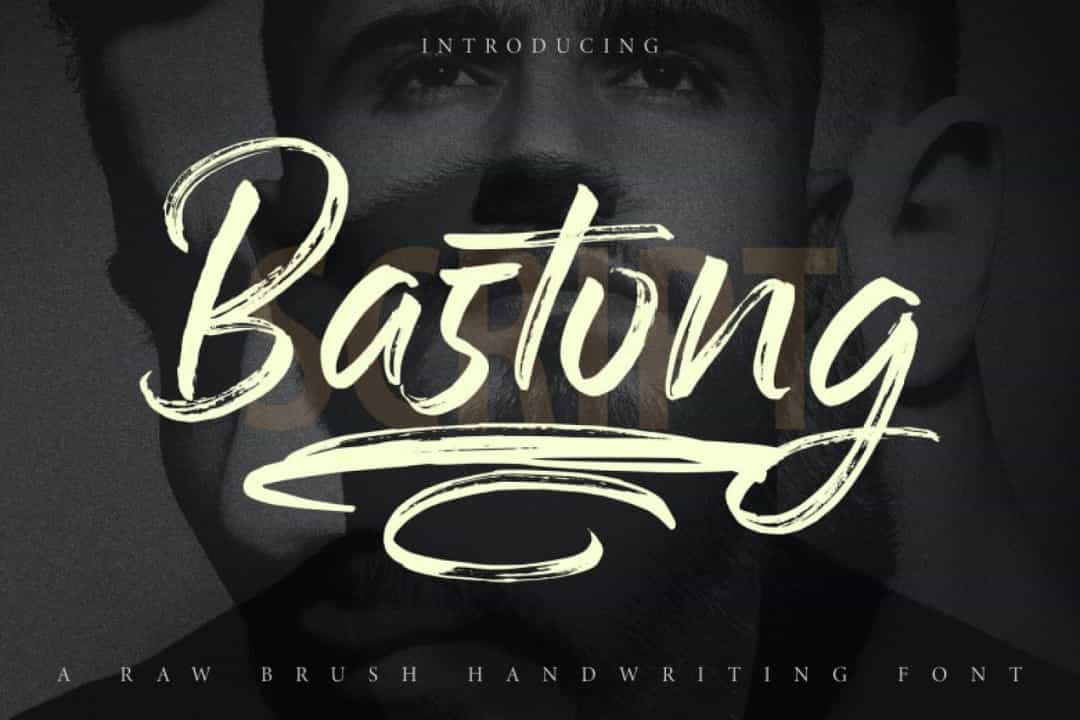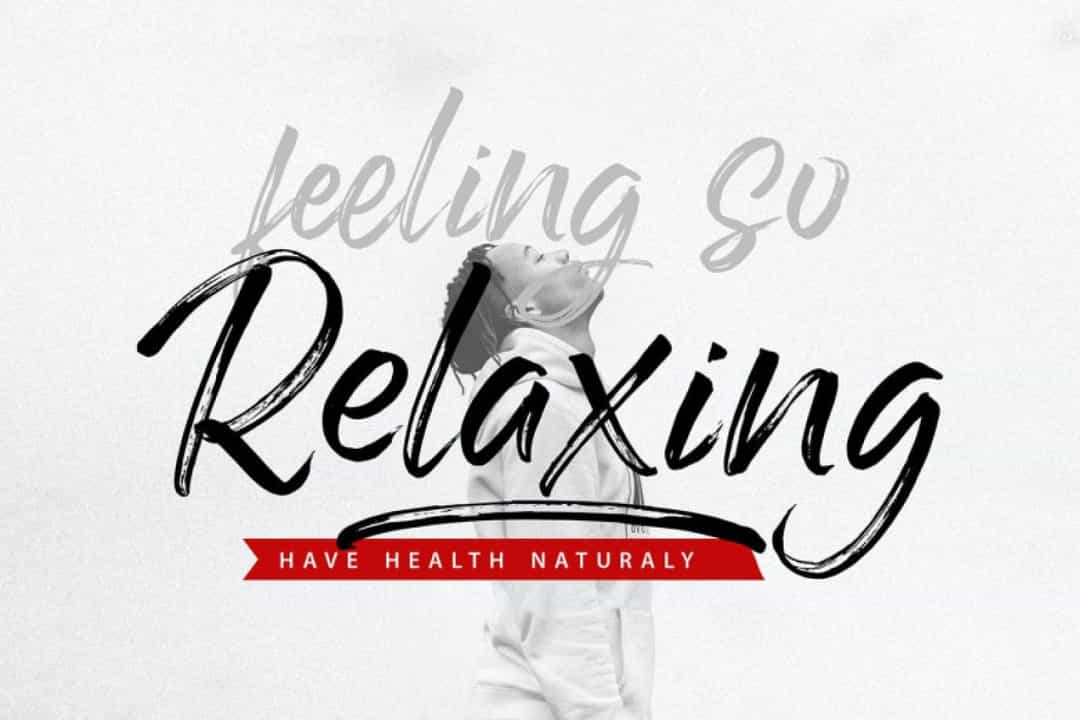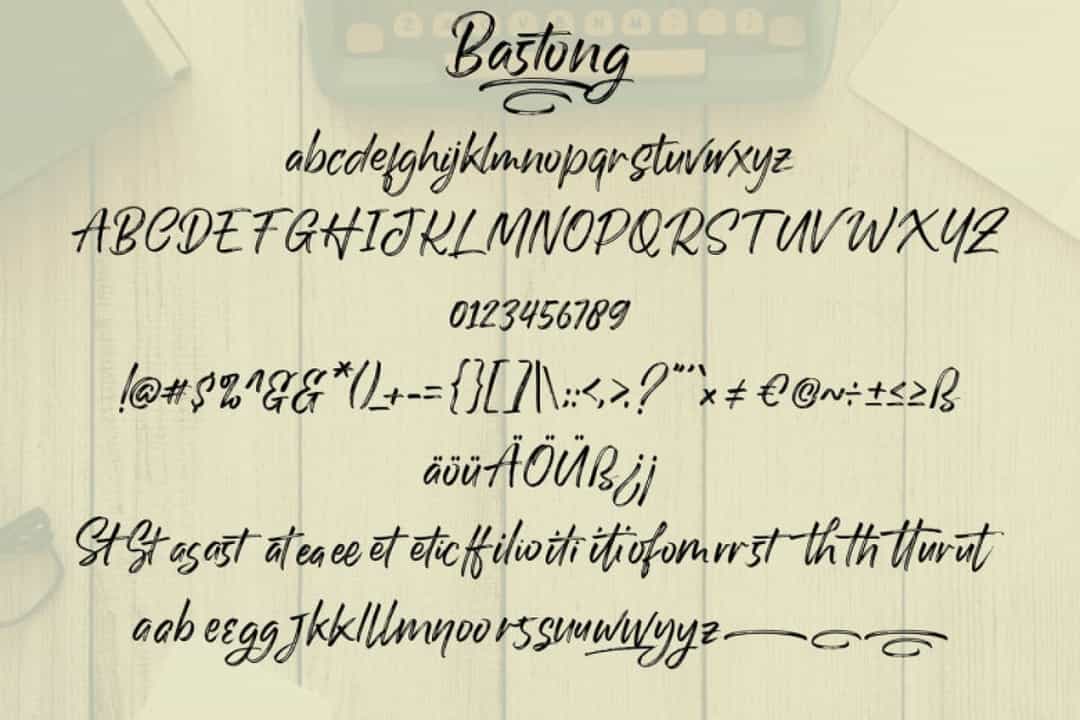
Bastong A Handwriting in Raw Brush Calligraphy Script Font boasts an elegant script style. Perfect for invitations, greeting cards, corporate cards, posters and quotes! Other characters were divided into various open type features including Stylistic Sets, Stylistic Alternates Contextual Alternates SWASH as well as Ligatures to further customize this font’s use in various contexts.